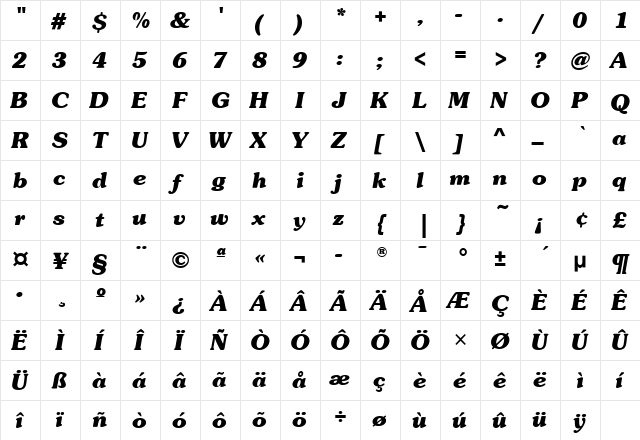
SouvenirMdITC Bold Italic Font Preview
Design Context for SouvenirMdITC Typeface
SouvenirMdITC takes a measured approach to typography — its balanced proportions and neutral character make it a reliable workhorse for both digital and print work. Its italic angle brings a sense of urgency and motion to the letterforms. Its bold stroke weight gives it real presence on the page.
Pro Tip: Try SouvenirMdITC for annotation and caption copy alongside an upright companion — the contrast in angle creates a dynamic but ordered typographic system.